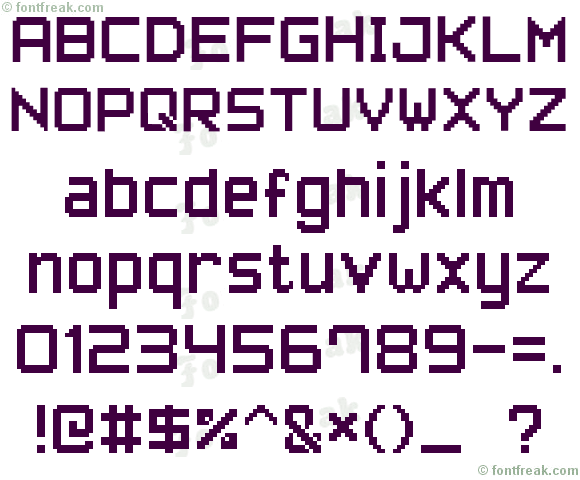
Pixel Font-7
About Pixel Font-7
Pixel Font-7 by Style-7 is a striking display font that embodies the retro aesthetic of pixel art, making it an ideal choice for a variety of creative projects. This freeware font features a unique pixelated design characterized by its uniform stroke weight and minimal contrast, which gives it a distinct, blocky appearance. The spacing between the characters is consistent, enhancing readability while still maintaining a playful vibe. Its straightforward, decorative elements echo the charm of early computer graphics, appealing to both nostalgia and modern design sensibilities.
Pixel Font-7 is particularly well-suited for use cases such as video game graphics, where its retro feel can evoke the essence of classic arcade games. It also works beautifully on promotional flyers for tech events, lending a contemporary edge to the material. Additionally, this font can enhance the look of social media graphics aimed at a youthful audience, making it a great choice for content creators seeking to capture attention. Small business owners in the gaming or digital art sectors can also leverage this font for branding elements, ensuring their marketing materials stand out in a crowded marketplace.
The target audience for Pixel Font-7 includes graphic designers who appreciate the versatility of pixel art, as well as small business owners and content creators looking for a unique font that adds personality to their projects. The appeal of this font lies in its ability to bridge the gap between vintage and modern aesthetics, allowing for creative freedom in a variety of contexts. For those looking to elevate their designs, the Pixel Font-7 font free download offers an accessible way to incorporate this distinctive style into any project, making it a standout choice for anyone aiming to capture a retro vibe with a contemporary twist.